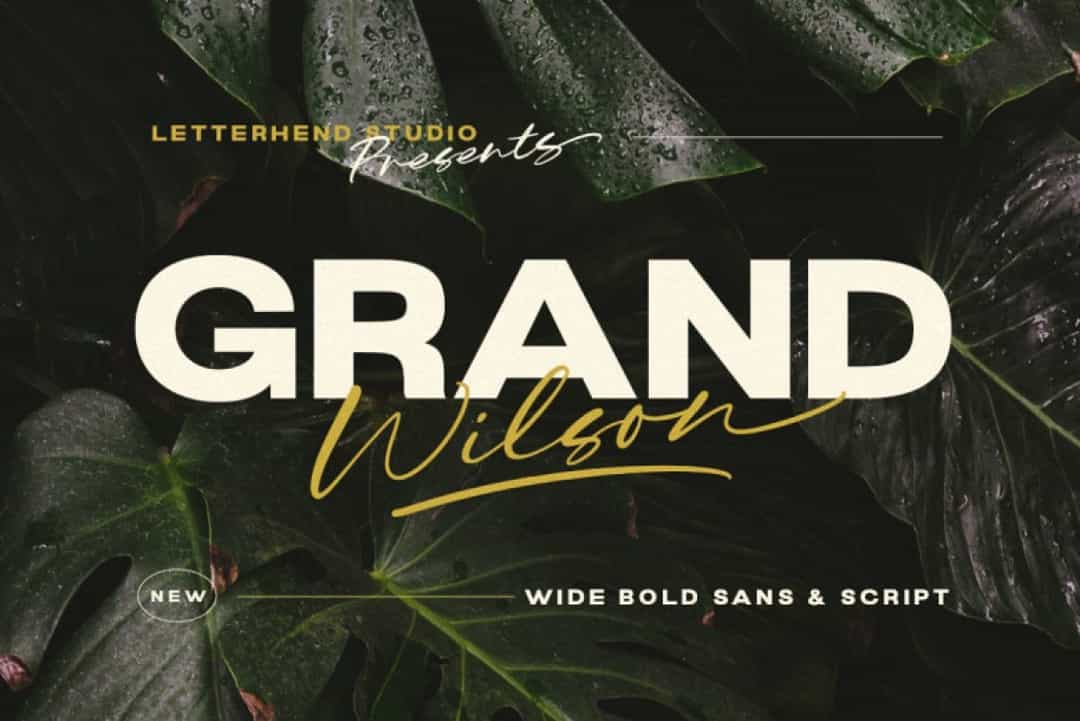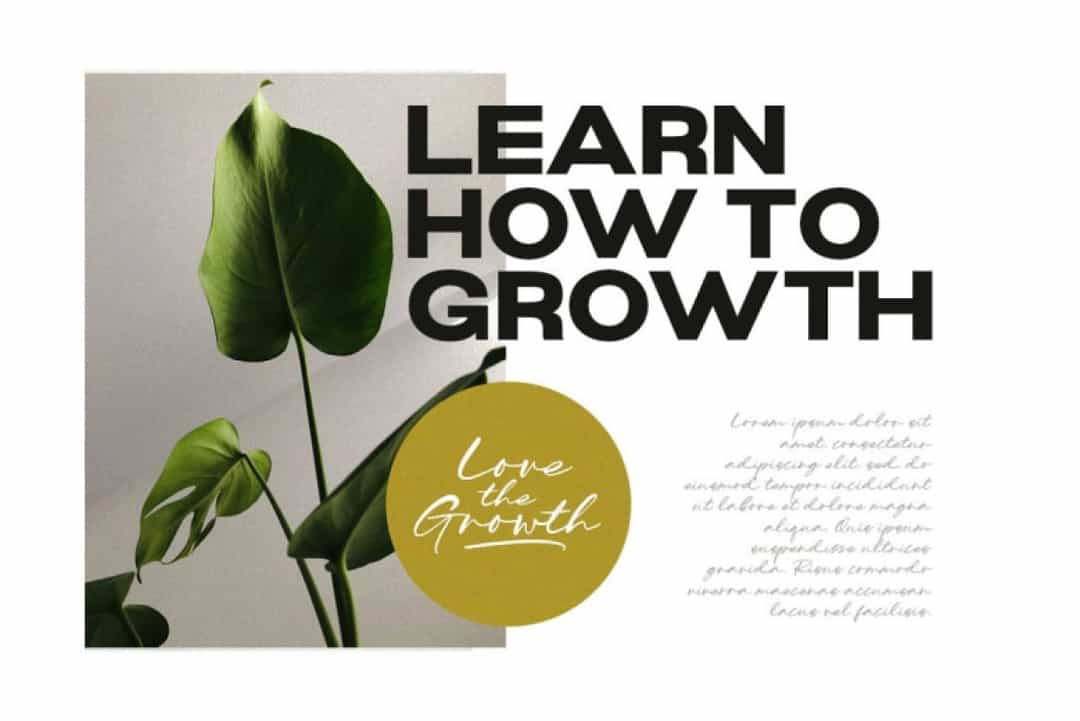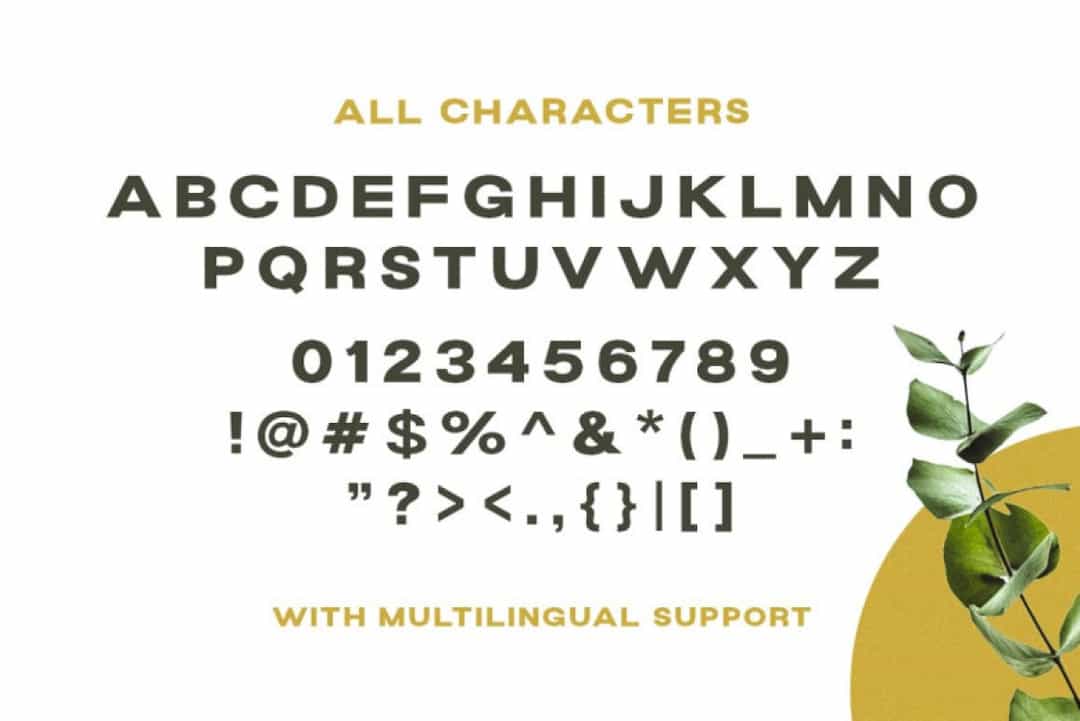
Discover Grand Wilson Font, part of the Sans Serif collection—a versatile and unique font perfect for adding a personal touch to your projects. Download it for free and enjoy crafting designs with style, from invitations to social media posts. This font is available exclusively for personal use, giving you the freedom to create without limits. Unlock your creativity with Grand Wilson Font today!
Grand Wilson Font is a collection of fonts that offers both modern and casual styles at once. Bold sans font combined with natural handwriting script make the ideal combination to use when selecting typeface for headlines or logotypes, clothing invitations, branding packaging or advertising purposes.